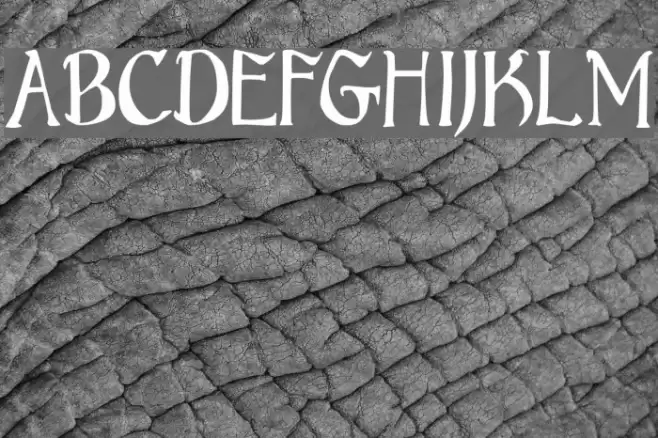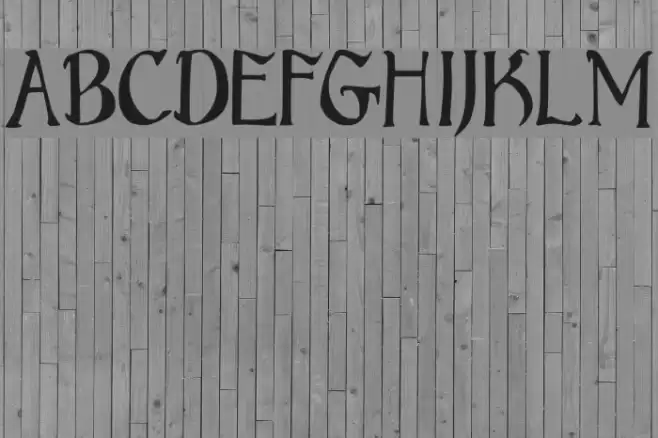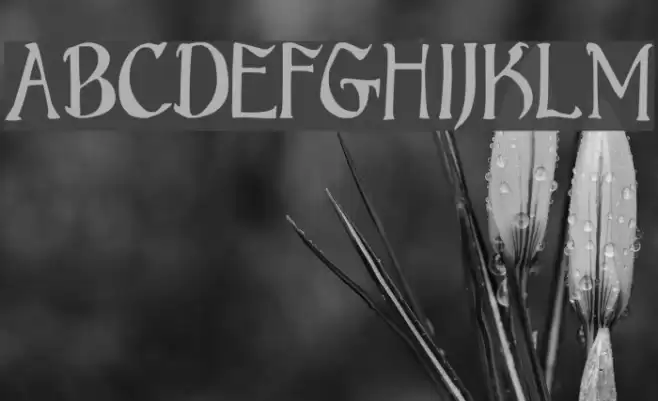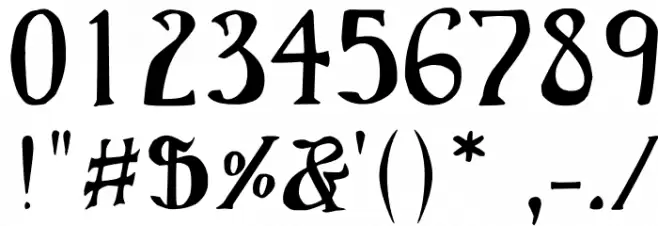
Bruce Standard Text Font
Bruce Standard Text Description
This font features a unique blend of classic and decorative elements, characterized by its sharp, angular serifs and slightly curved strokes. The uppercase letters exhibit a bold presence with their pronounced serifs and varying stroke widths, creating a dynamic and eye-catching appearance. The lowercase letters maintain a consistent style, with a slightly condensed form that adds to the font's distinctiveness. Numbers are bold and clear, ensuring readability while maintaining the overall aesthetic. Special characters are designed with the same attention to detail, making them seamlessly integrate with the rest of the font. This font's artistic flair makes it suitable for projects that require a touch of elegance and creativity.
A decorative serif font with bold, angular serifs and dynamic strokes from Uncategorized fonts.
- Proposed Projects: Ideal for branding, posters, book covers, and any project requiring a creative and elegant touch.